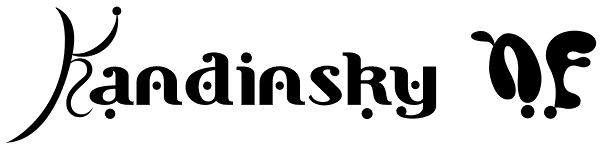
Kandinsky NF
While strolling through the Phillips Collection in Washington, DC, I came across a delightful painting by Wassily Kandinsky entitled “Succession”. Many of the forms seemed to me typographic so, of course, a font followed, and this is it: wild, wacky...